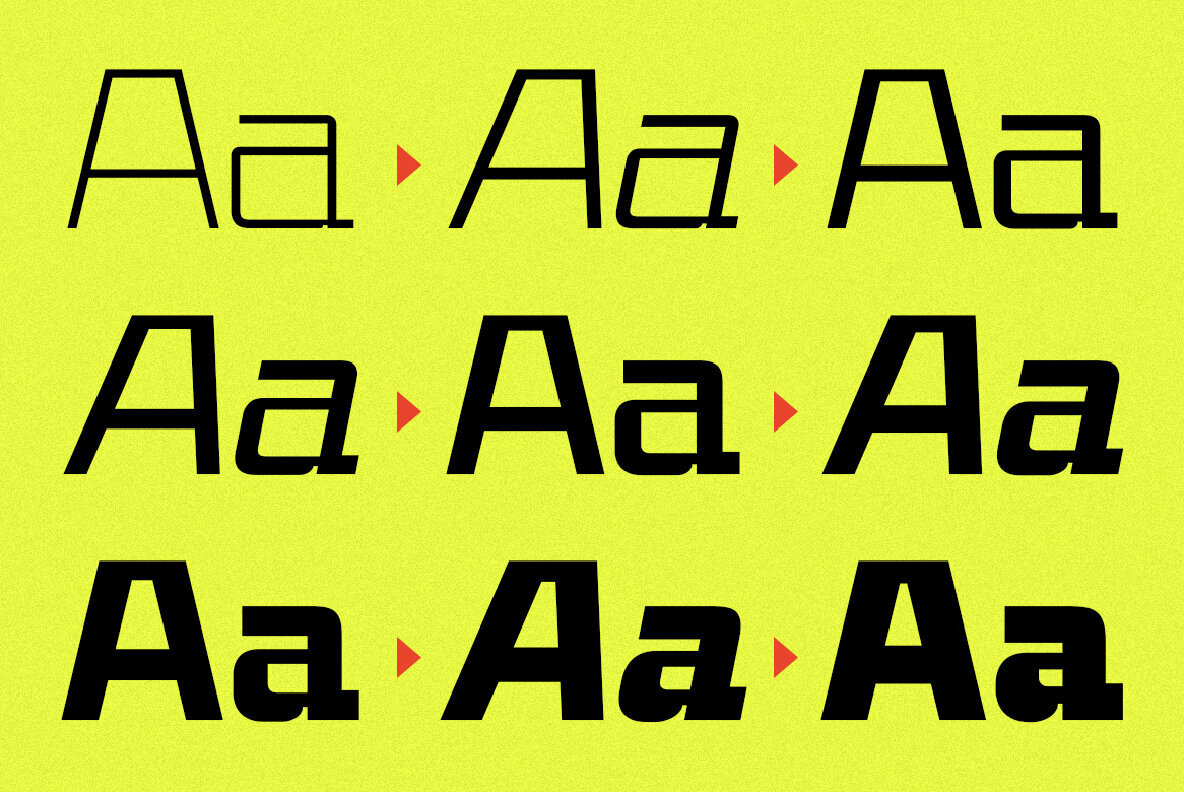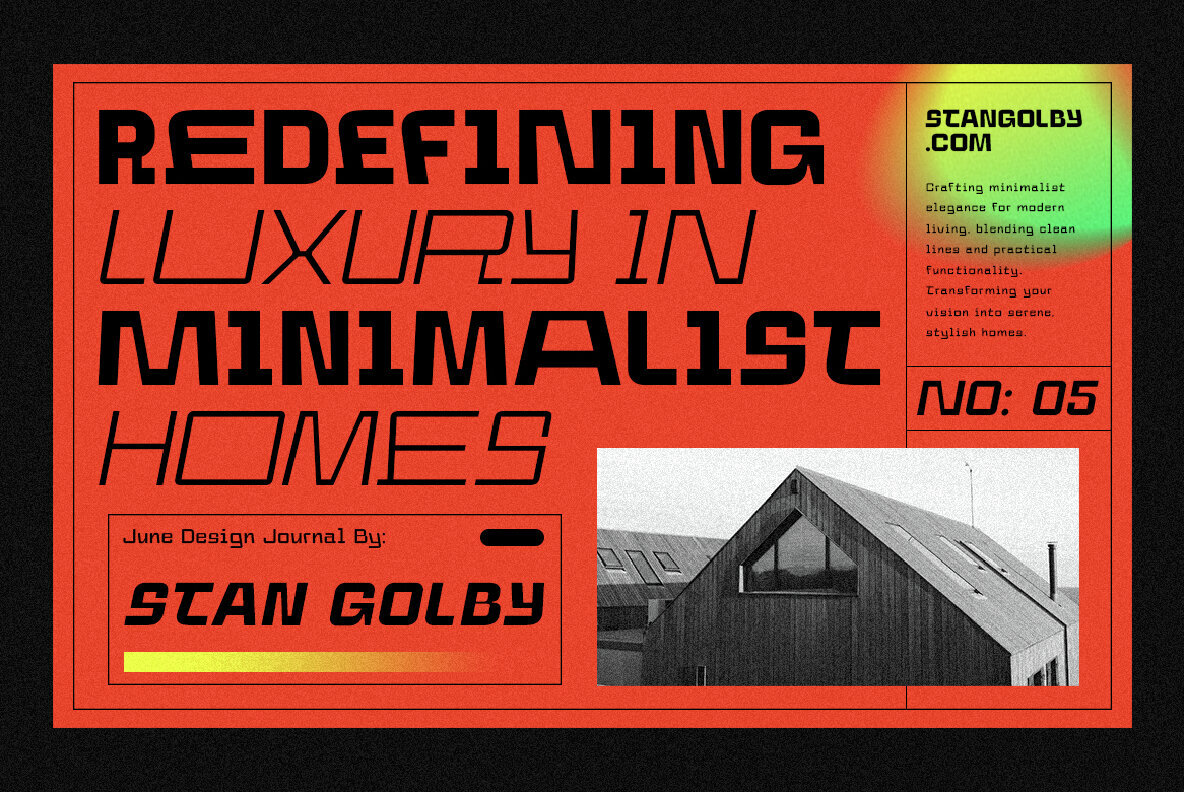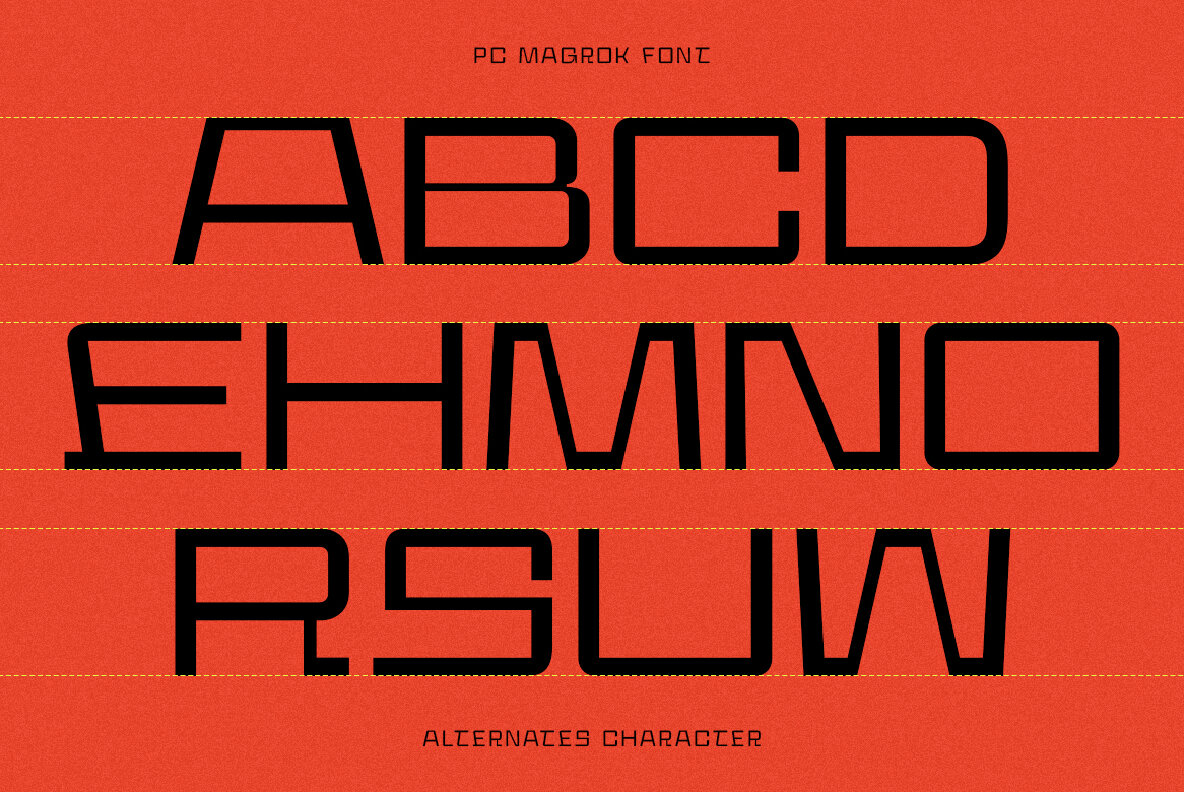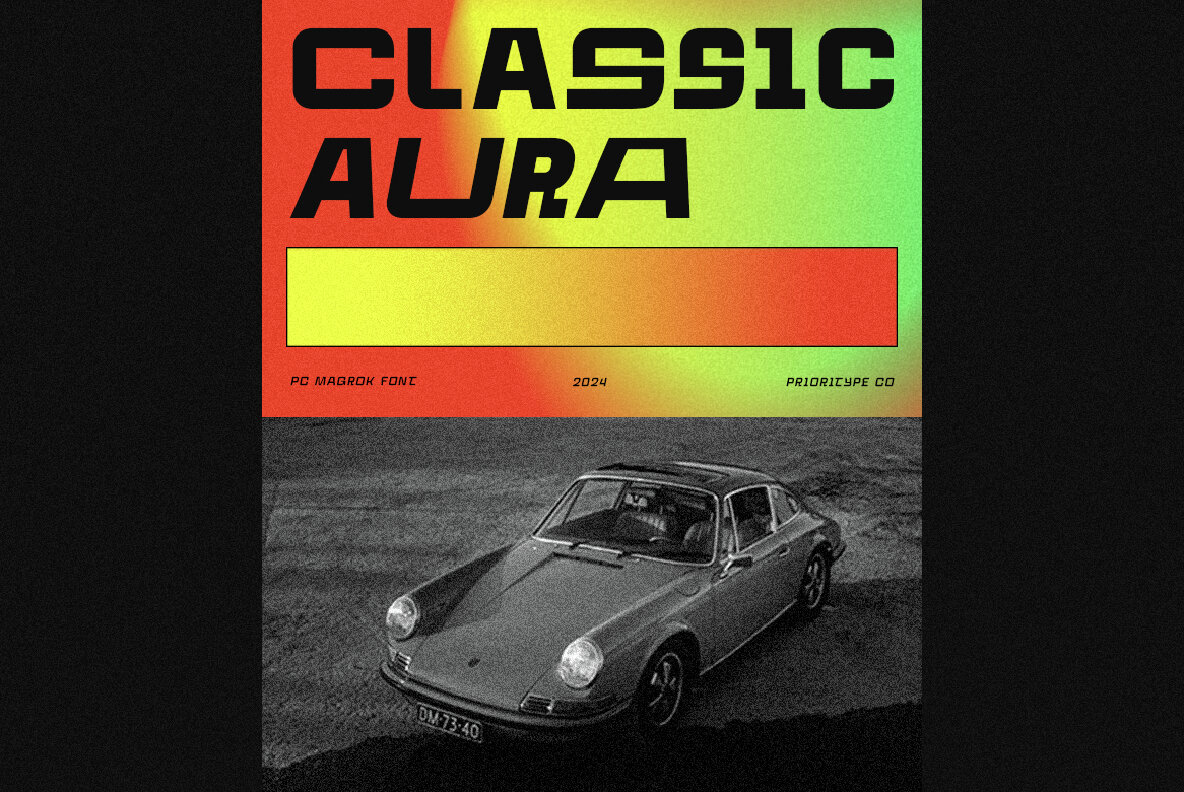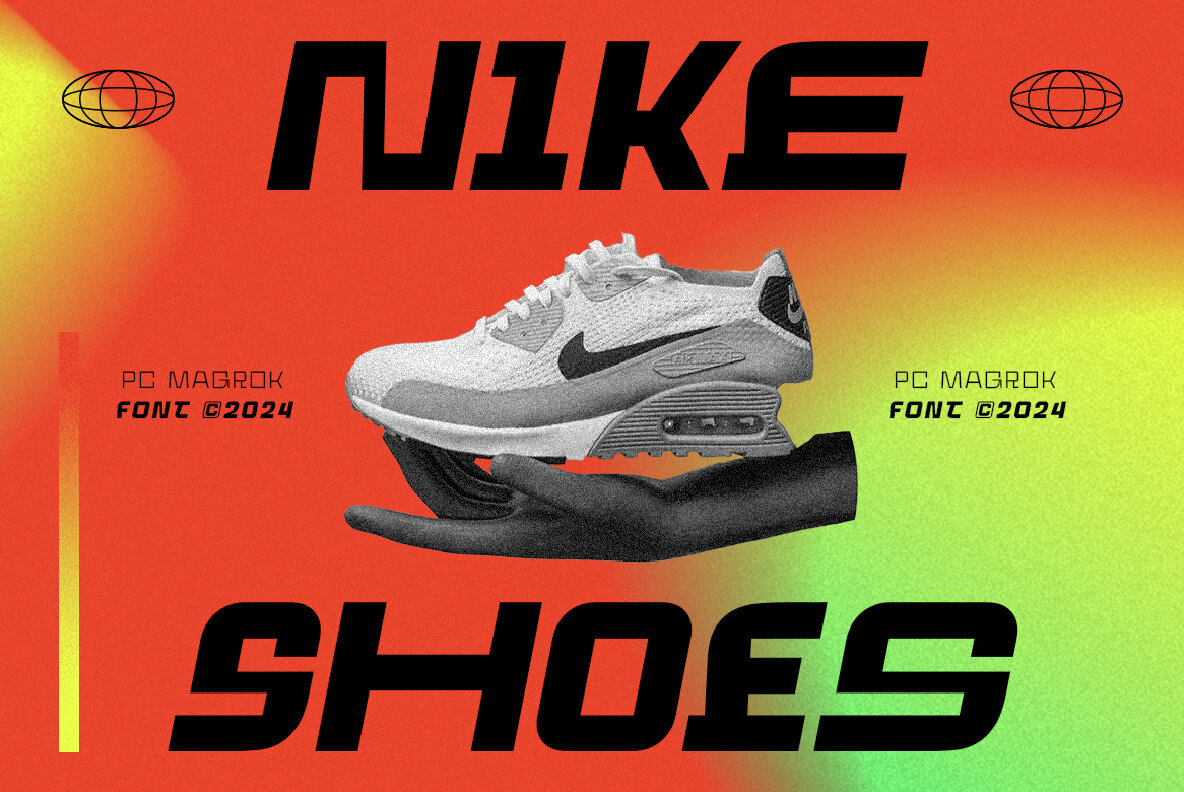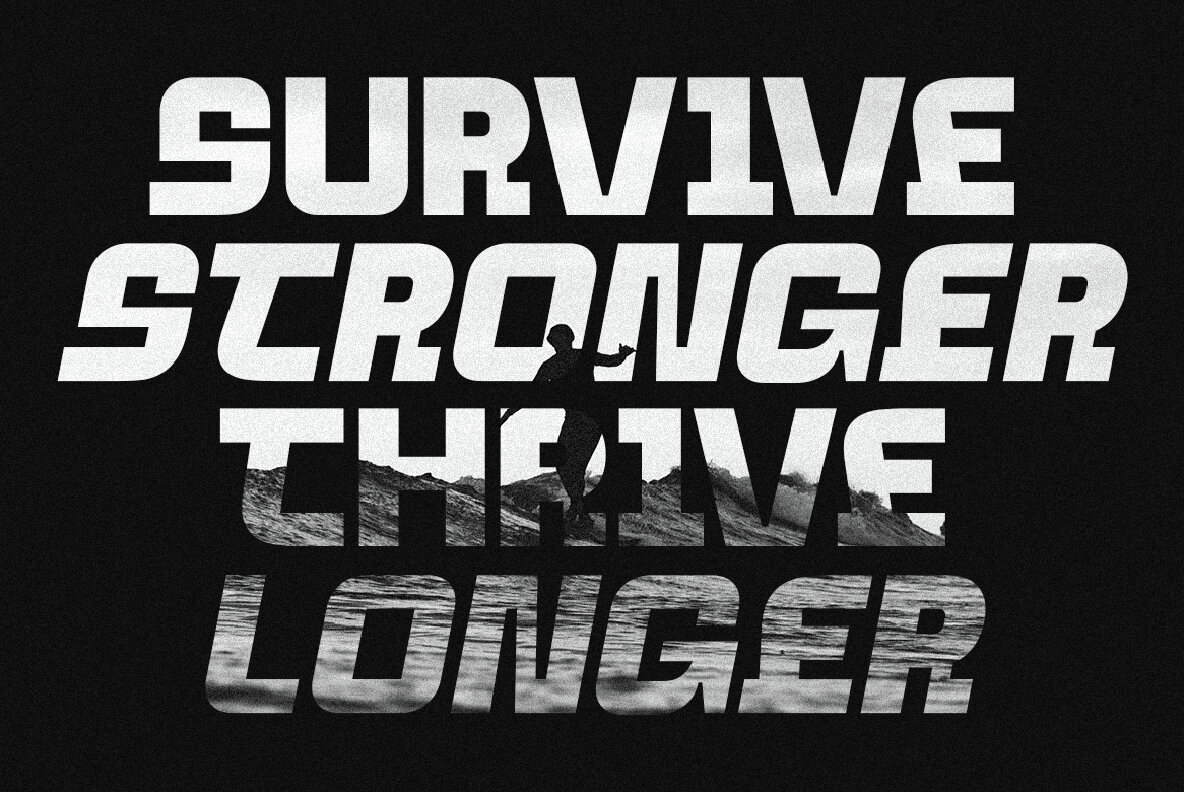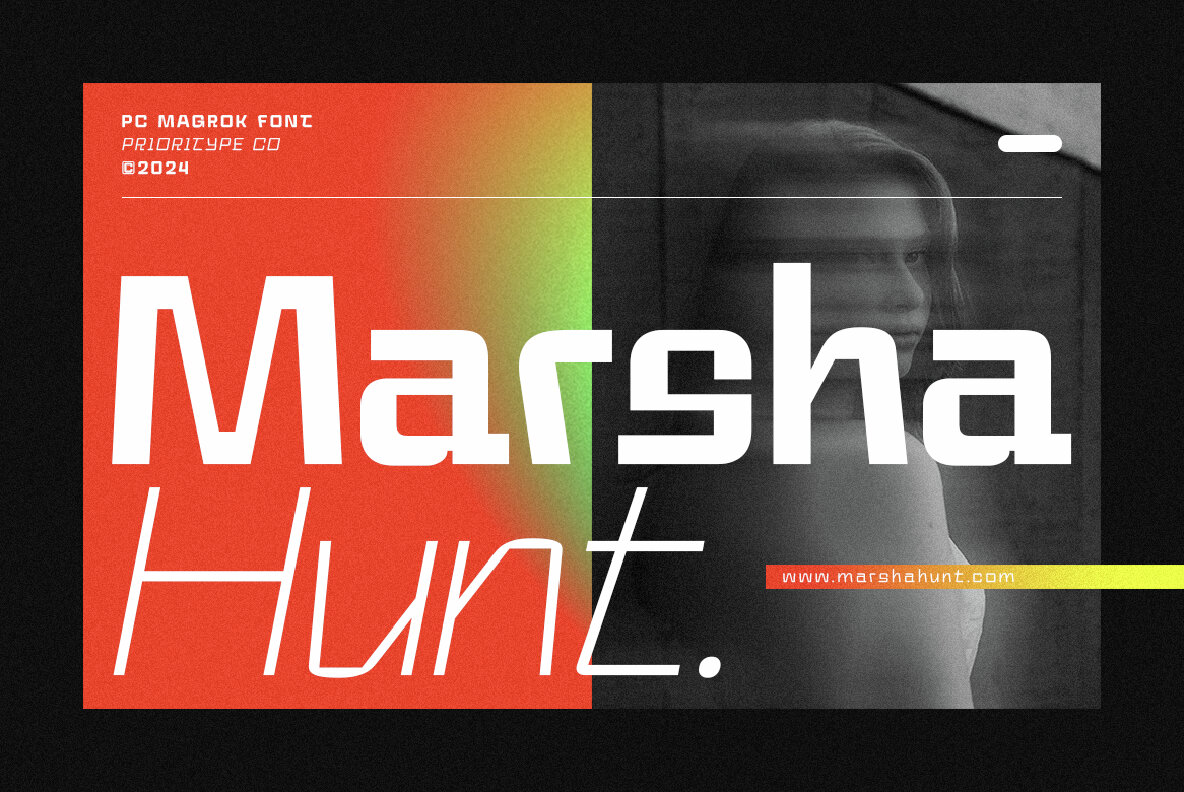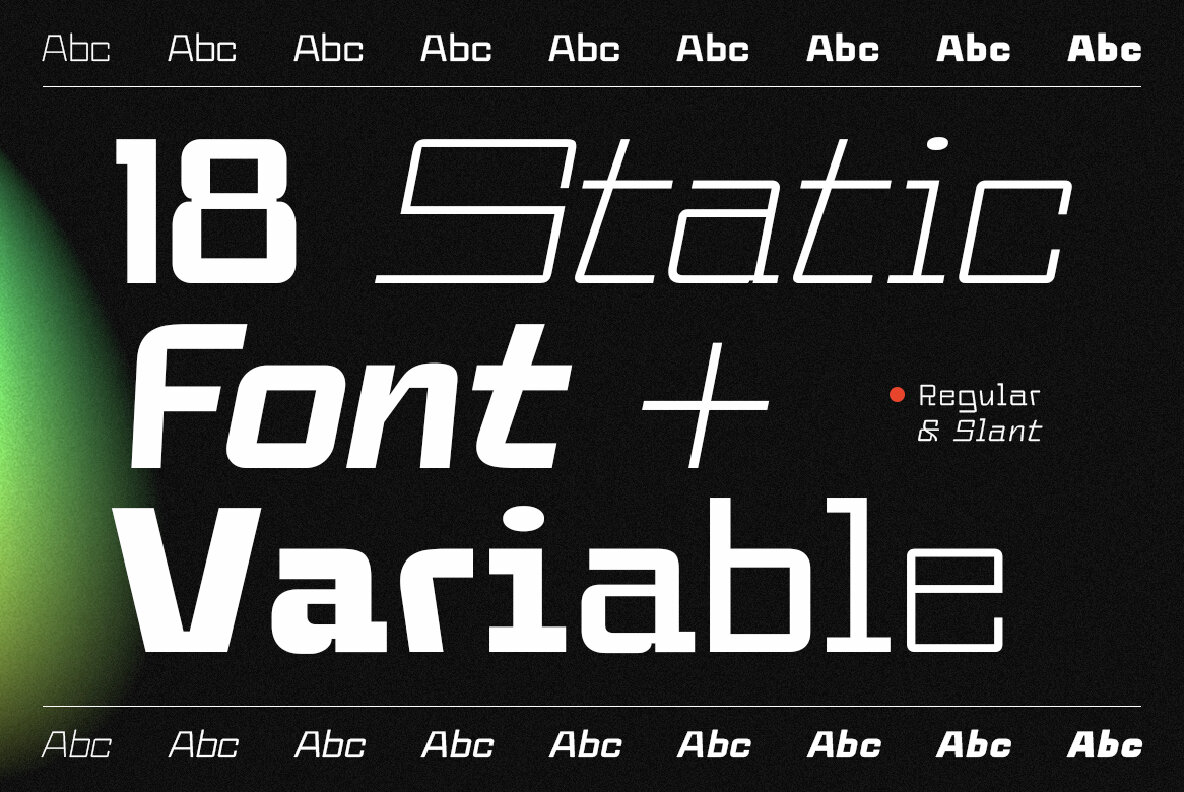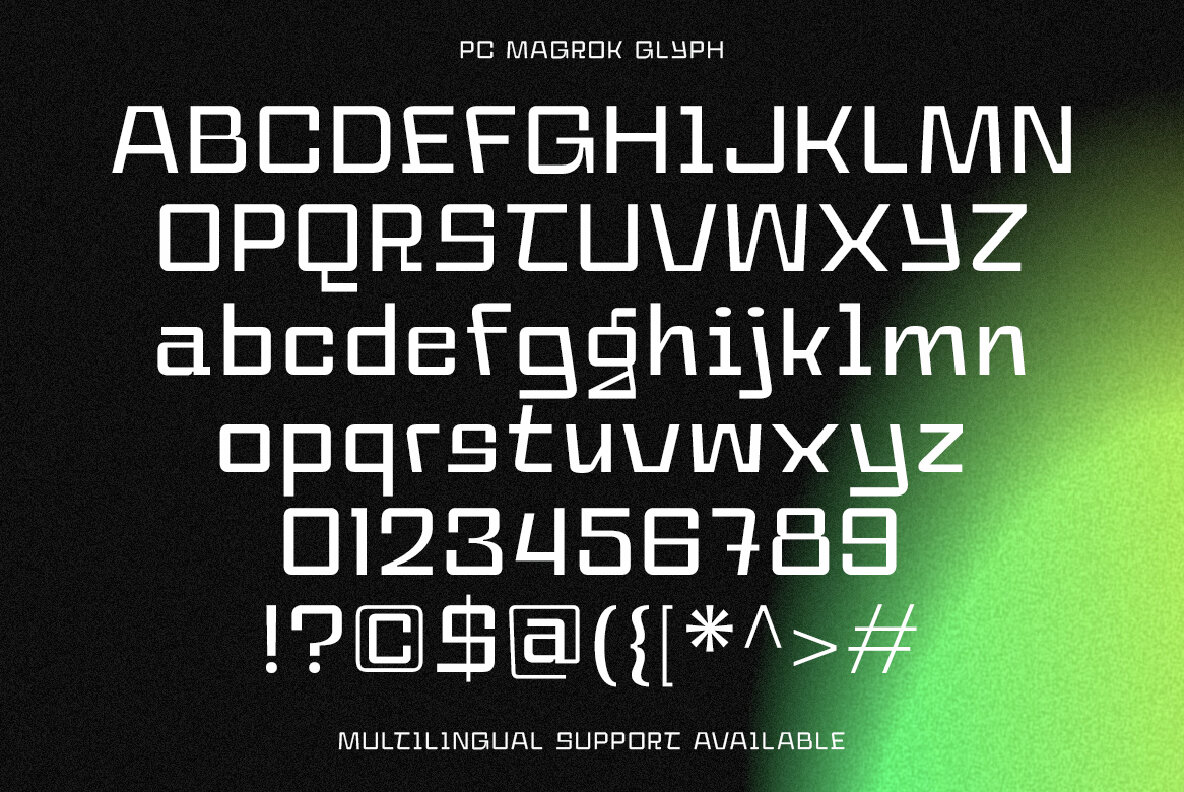
PC Magrok Font
PC Magrok Variable
This is a geometric sans-serif font with a monospaced design that gives it a highly structured and modern appearance. Its clean, linear, and technical style makes it ideal for contemporary and high-tech design projects, particularly those that require a bold and distinct typeface. The font's precise and modular characteristics emphasize clarity and legibility, making it suitable for both display and technical applications.